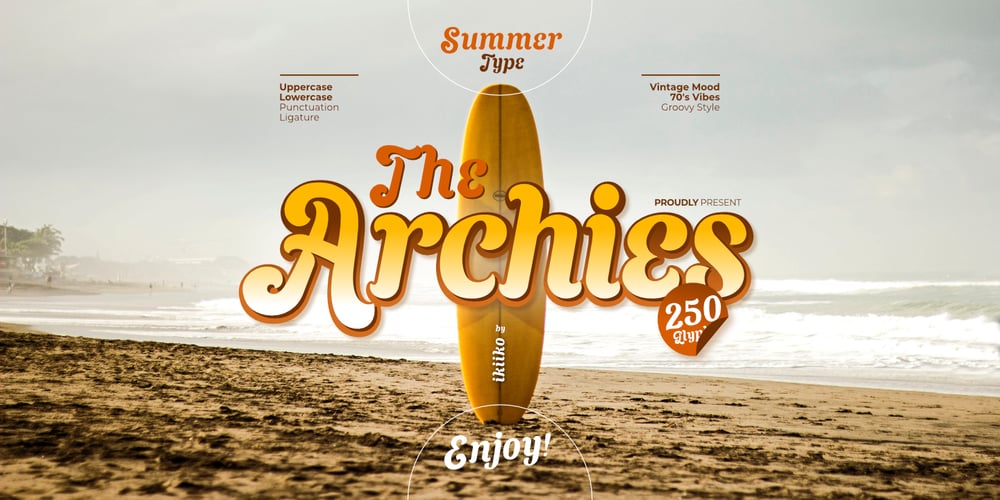
The Archies Typeface Font Family was designed by Andhika Pradana and published by IKIIKOWRK. The Archies Typeface contains 1 styles and family package options. Proudly present The Archies Typeface, created by ikiiko.A summer mood typeface that has a vintage style & holiday vibes. This typeface is perfect for an holiday greeting, summer camp poster, vacation title, beach & tropical design, and so much more.What’s Included? Uppercase & Lowercase Number & Punctuation Ligature Multilingual support Format File : TTF & OTF Works on PC & Mac Get also a good offer & FREEBIE at our site : www.ikiiko.comEnjoy our font and if you have any questions, you can contact us by email : ikiikowrk@gmail.com